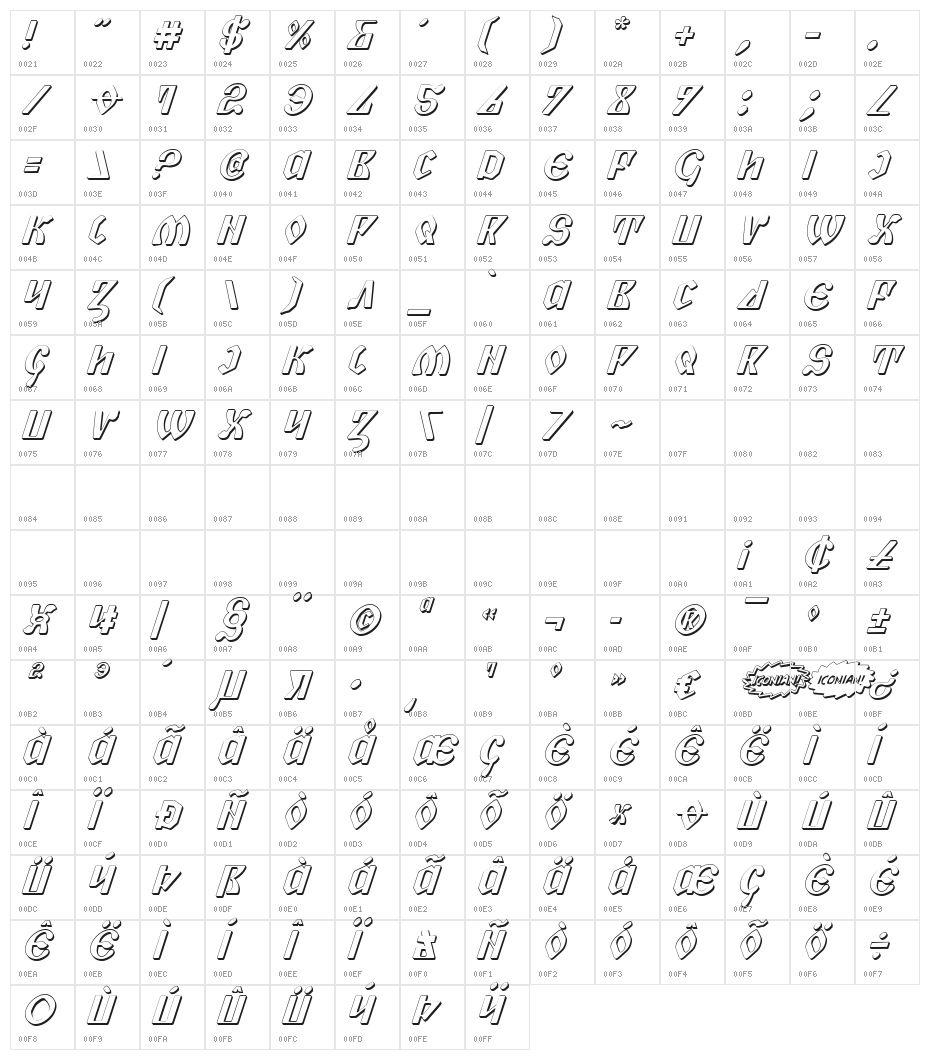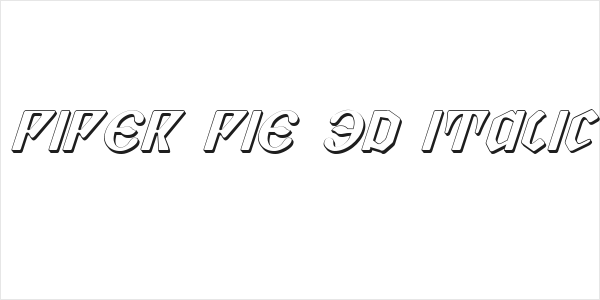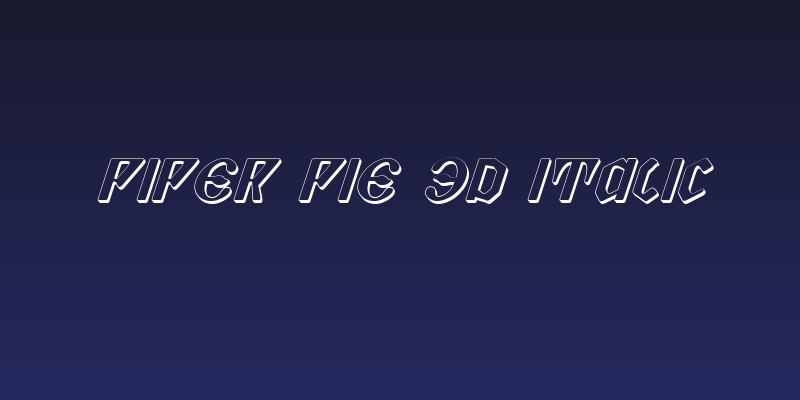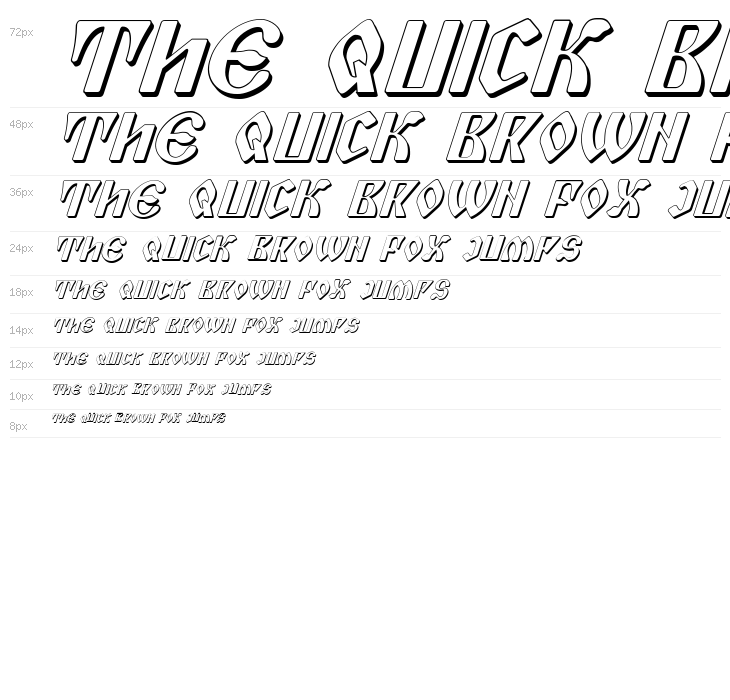
Piper Pie 3D Italic Font
Piper Pie 3D Italic Description
This font features a bold, three-dimensional design with a distinct italic slant, giving it a dynamic and modern appearance. The characters are outlined, creating a shadow effect that enhances the 3D illusion. The uppercase and lowercase letters maintain a consistent style, with angular edges and a playful yet structured form. Numbers and special characters follow the same design principles, ensuring uniformity across all glyphs. The font's unique style makes it stand out, suitable for projects that require a bold statement.
Proposed ProjectsIdeal for posters, logos, video game graphics, and any design requiring a bold, eye-catching font.